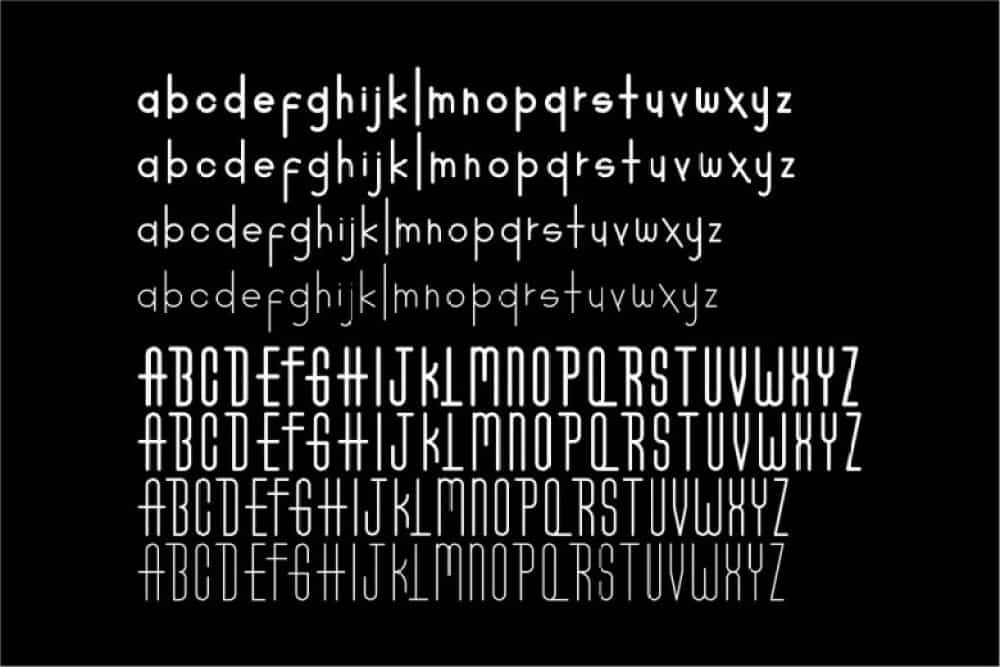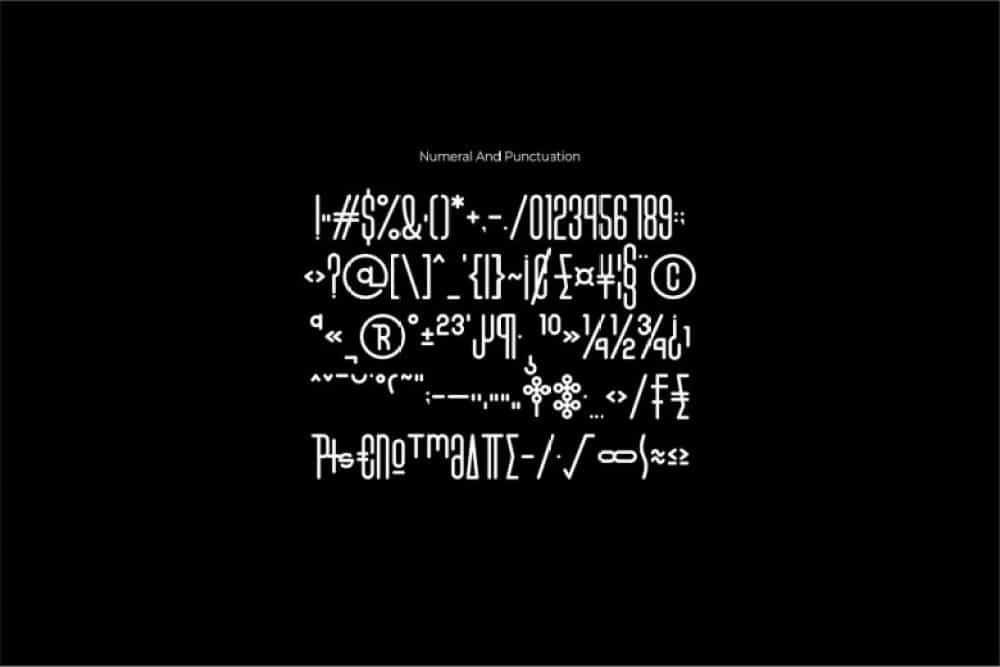
Oblo modern sans serif font has arrived, and it is a font that many ladies and gentlemen are eyeing on. Namely oblo. Oblo font is a free for commercial use, stylish sans serif font with the latest simple style, it has captured the market. This font is kept looking elegant, classy, and stylish for all of the pages that we design.